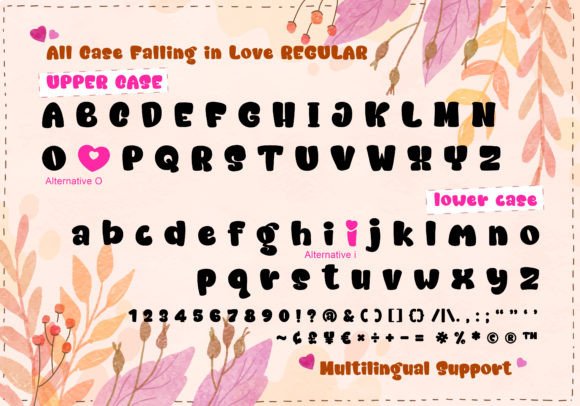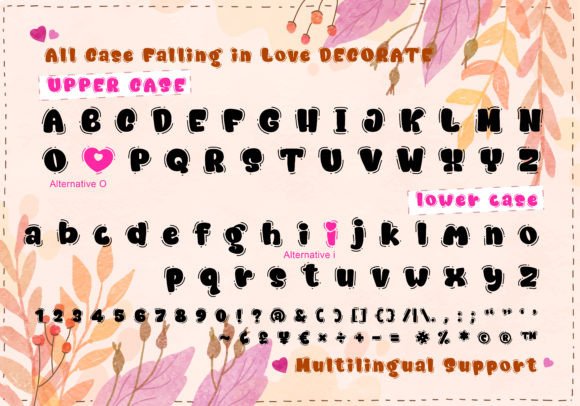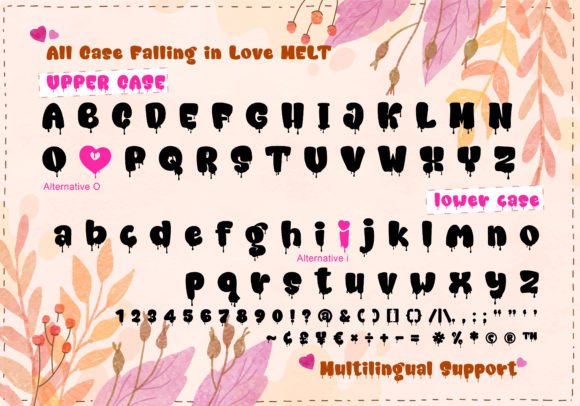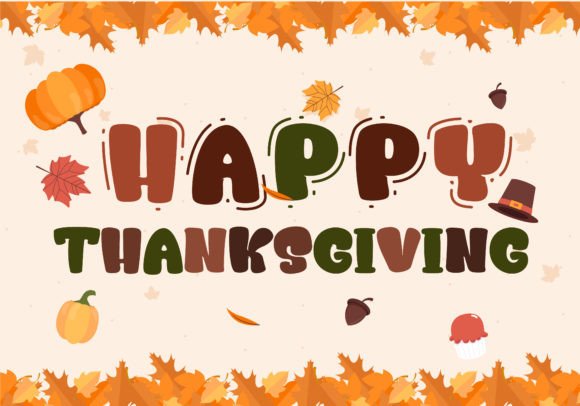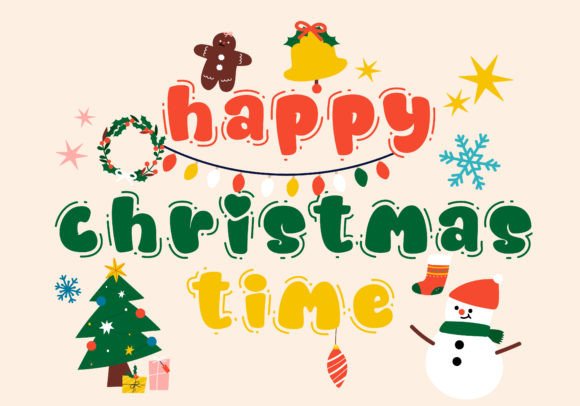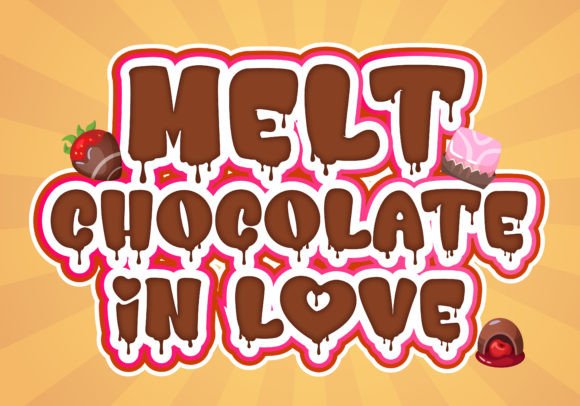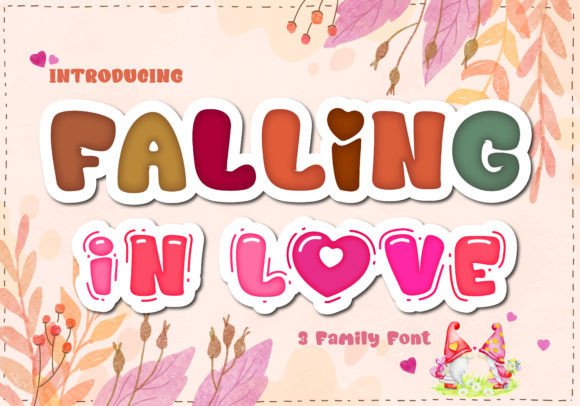
Falling in Love Font: The Perfect Choice for Children’s Activities and School Designs
Are you a designer or crafter looking for a font that embodies playfulness and authenticity? Look no further than the Falling in Love Font. This bubbly, chunky lettered, and friendly display font is perfect for any children’s activity or school design. In this article, we’ll dive into the features and benefits of the Falling in Love Font and explore how it can elevate your designs.
What is Falling in Love Font?
Falling in Love Font is a unique and charming display font that is designed to capture the essence of playfulness and friendliness. Its chunky letters and bouncy curves make it an ideal choice for designs that require a fun and youthful touch. Whether you’re creating materials for a children’s party, a school project, or a kids’ activity book, this font is sure to bring a smile to your audience’s faces.
Key Features of Falling in Love Font
- Bubbly and Chunky Letters: The Falling in Love Font features thick, chunky letters that are perfect for creating eye-catching headlines and titles.
- Playful Curves: The font’s bouncy curves add a touch of whimsy and playfulness to any design.
- Friendliness: The font’s friendly and approachable feel makes it perfect for designs that require a personal touch.
- Authenticity: The Falling in Love Font has a genuine and authentic feel that will make your designs stand out from the crowd.
Benefits of Using Falling in Love Font
So, why choose the Falling in Love Font for your designs? Here are just a few benefits of using this amazing font:
- Instant Recognition: The font’s unique and playful design makes it instantly recognizable and memorable.
- Emotional Connection: The font’s friendly and approachable feel helps to create an emotional connection with your audience.
- Versatility: The Falling in Love Font can be used for a wide range of designs, from children’s activities to school projects and more.
- Ease of Use: The font is easy to read and use, making it perfect for designs that require a clear and concise message.
Design Ideas Using Falling in Love Font
So, how can you use the Falling in Love Font in your designs? Here are a few ideas to get you started:
- Children’s Party Invitations: Use the Falling in Love Font to create fun and playful party invitations that will get your kids excited for the big day.
- School Projects: The font is perfect for school projects, such as posters, presentations, and reports.
- Kids’ Activity Books: Use the Falling in Love Font to create engaging and interactive kids’ activity books that will keep young minds entertained.
- DIY Crafts: The font is perfect for DIY craft projects, such as making cards, gift tags, and other handmade items.
In conclusion, the Falling in Love Font is a unique and charming display font that is perfect for any children’s activity or school design. Its bubbly, chunky letters and playful curves make it an ideal choice for designs that require a fun and youthful touch. With its instant recognition, emotional connection, versatility, and ease of use, this font is sure to elevate your designs and bring a smile to your audience’s faces. So why wait? Download the Falling in Love Font today and start creating amazing designs that will capture the hearts of your audience!